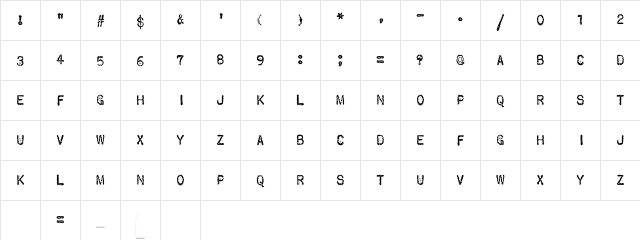
VTypewriter Telegram
Style: Telegram
VTypewriter Family
Design Context for VTypewriter
VTypewriter uses fixed-width spacing throughout, giving it the structured, systematic character associated with coding environments and technical documentation.
Pro Tip: Use VTypewriter with slightly increased line-height for extended reading - fixed-width spacing can feel dense in longer passages without extra breathing room.